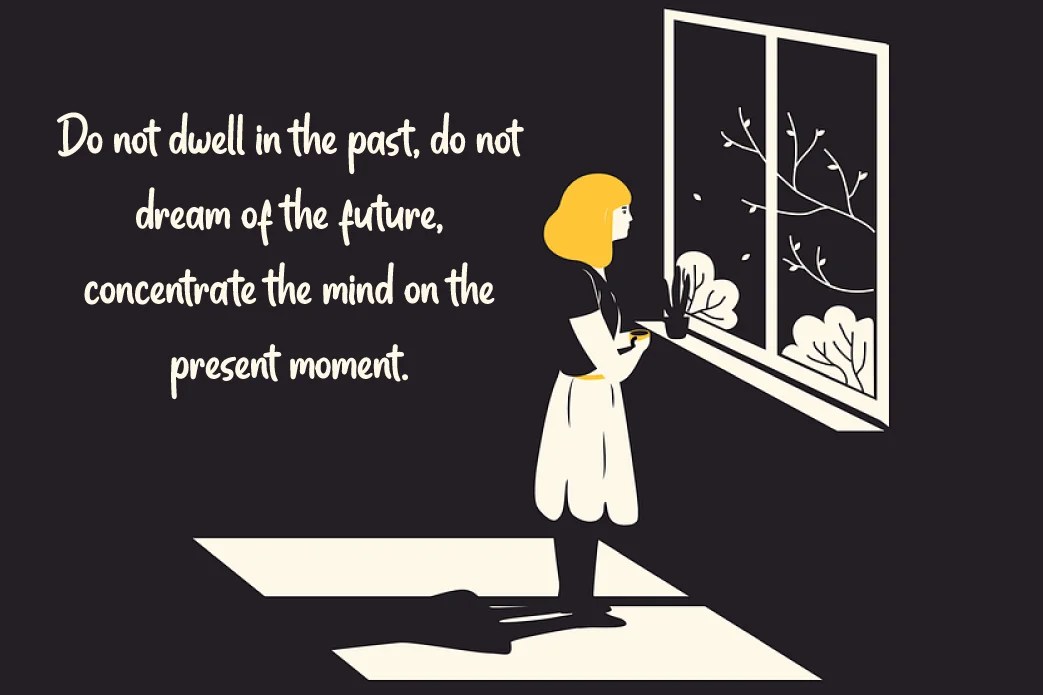
The best handwriting fonts for quotes have to do one specific job well: read instantly on a phone screen, in the second or two someone spends scrolling past a post. A script that looks beautiful in a mockup but turns into a blur at Instagram size defeats the purpose. Here are four Twinletter handwriting fonts for quotes built for exactly that use, each with a slightly different lean based on how Twinletter itself describes them.
Quotes are some of the most shared content on Instagram, Pinterest, and LinkedIn precisely because a well-designed graphic gets saved and re-shared while a plain screenshot gets scrolled past. Since most people read on a phone, general Instagram design guidance recommends keeping text at roughly 24-30pt so it stays readable without zooming in — worth checking directly against any of these fonts before locking in a final quote template.
Since these handwriting fonts for quotes all come from the same product generation, the fastest way to compare them is side by side in the type tester rather than relying on the short description alone — but here’s how Twinletter positions each one:
Barbeque — described as creating a “relaxed yet memorable impression,” making it a fit for laid-back, everyday quotes rather than high-drama statements.
Bewitched — built specifically to be “easy for people to remember at first glance,” which is exactly the priority for a quote graphic competing for a half-second of attention while someone scrolls.
Asegunt — described as “lovely on the eyes” with “original hand strokes mixed together,” suited to quote graphics that want a softer, more artistic abstract feel.
Girly — described with “bold, strong” character alongside a “relaxed, elegant, and charming” impression, positioning it as the option with the most presence for a statement-style quote.
Beyond those individual leanings, all four handwriting fonts for quotes share the same broader use case and feature set, which is worth knowing if you’re choosing between these handwriting fonts for quotes for more than one project. Twinletter positions all of them for craft goods, children’s writing, adventure posters, food banner titles, wedding invitations, product packaging logos, social media page covers, furniture banner headlines, and book covers — so any of the four works well beyond quote graphics alone if a brand needs one script across multiple touchpoints.
Which of these four is the most legible at small sizes? Twinletter doesn’t publish size-specific legibility data for any of these handwriting fonts for quotes, so the safest approach is to test the actual quote text you plan to use in each type tester at the size your final graphic will be posted at, rather than relying on the description alone.
Can these fonts be used for anything besides quote graphics? Yes — all four are also positioned for craft goods, wedding invitations, product packaging, book covers, and general social media branding, so these handwriting fonts for quotes double as a general-purpose script for a brand’s wider content, alongside quote-style content.
Do these fonts support languages other than English? Yes, all four include multilingual support across 19 European languages, making them usable for quote content and branding outside English-only markets.